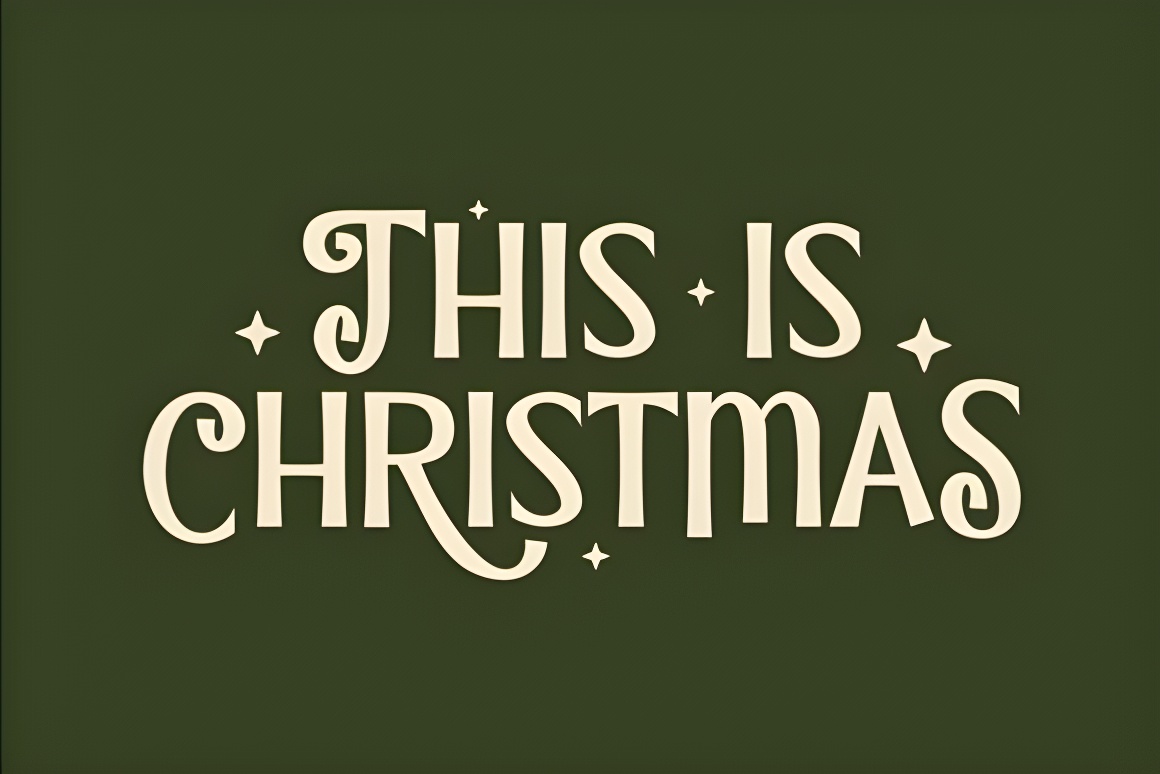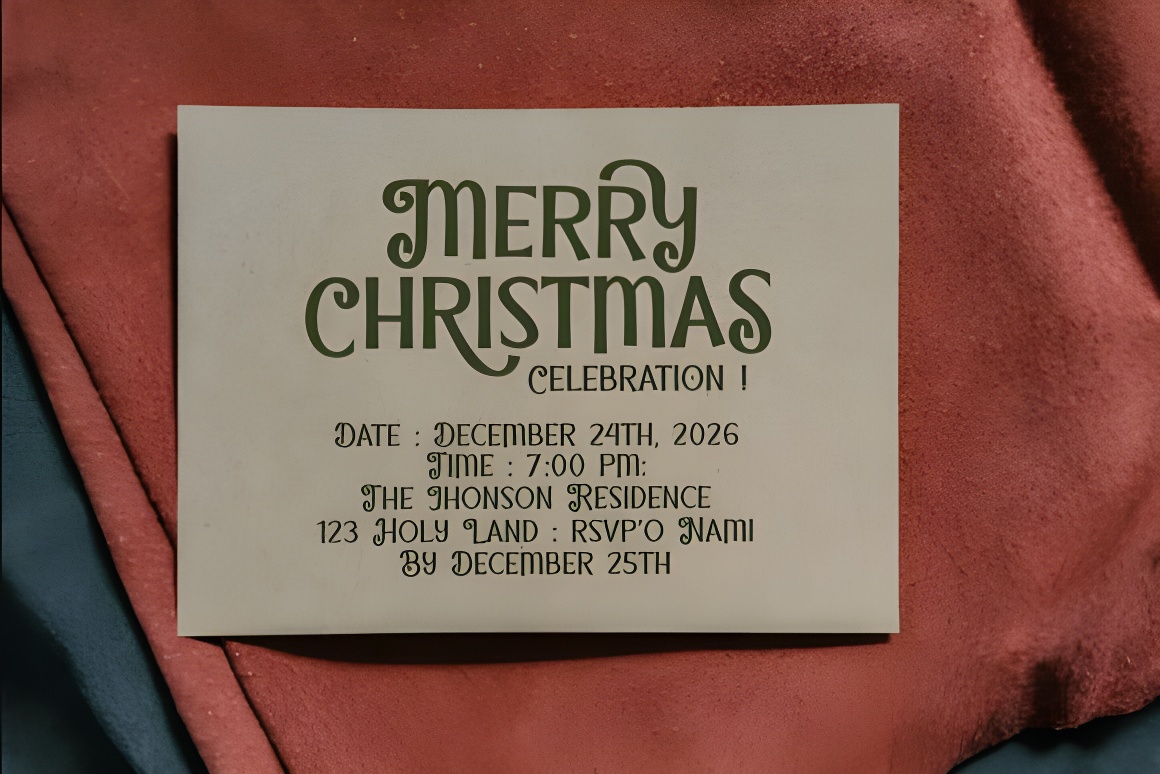
Festive Christmas Handwritten Font - Quirky, Decorative Style
Playful Christmas font featuring artistic curves & decorative stars. Perfect for holiday cards, invitations, apparel, posters, and packaging. Quirky handwritten style brings warmth to festive designs.